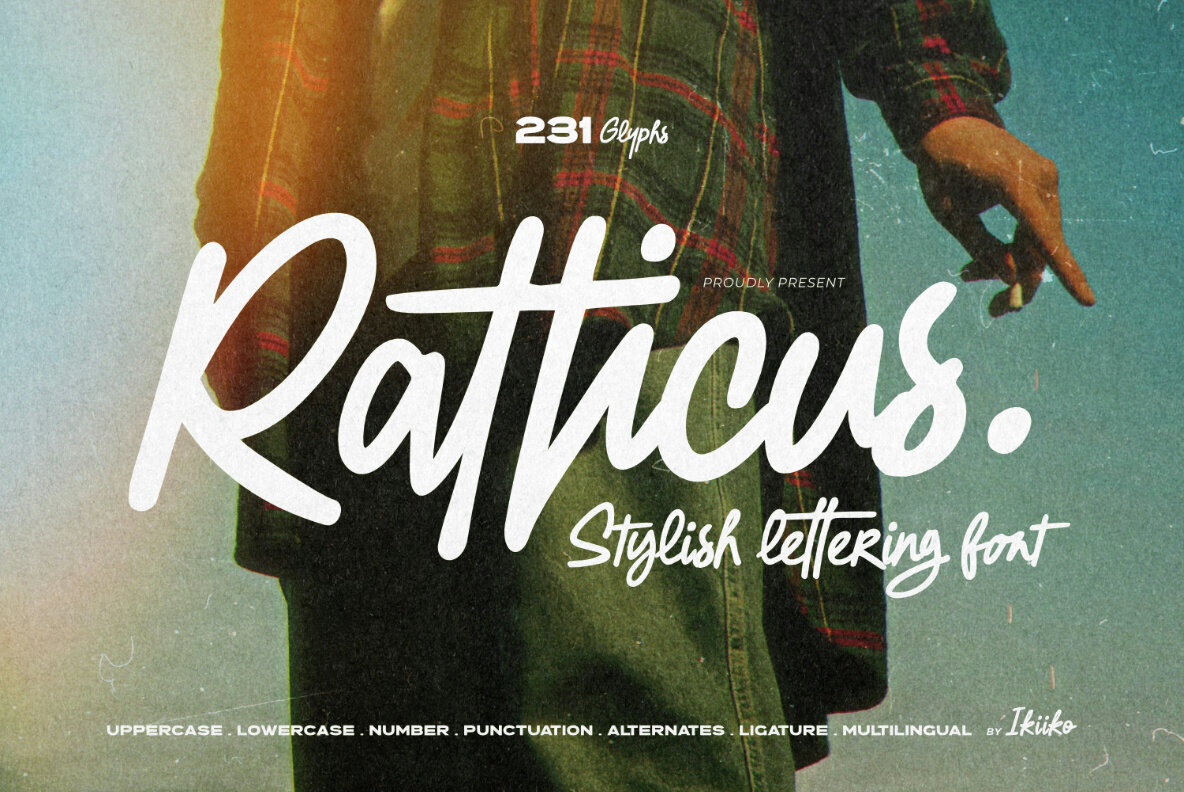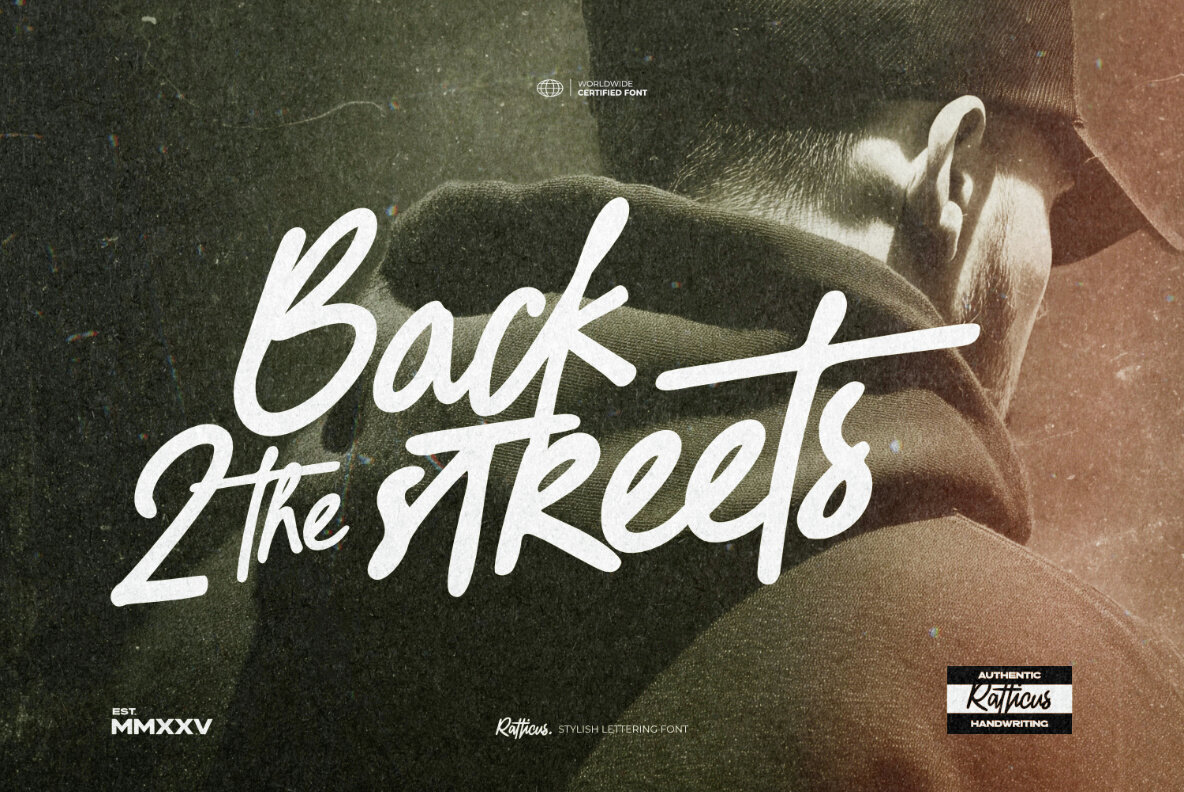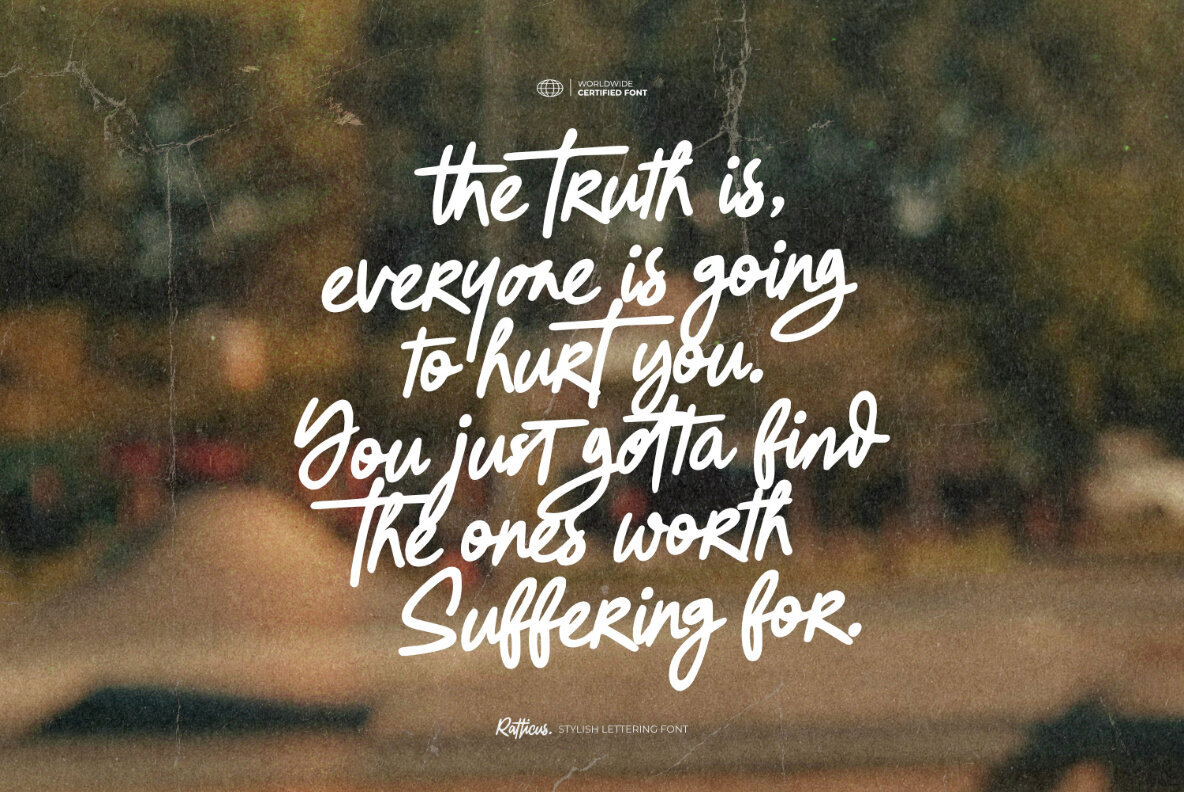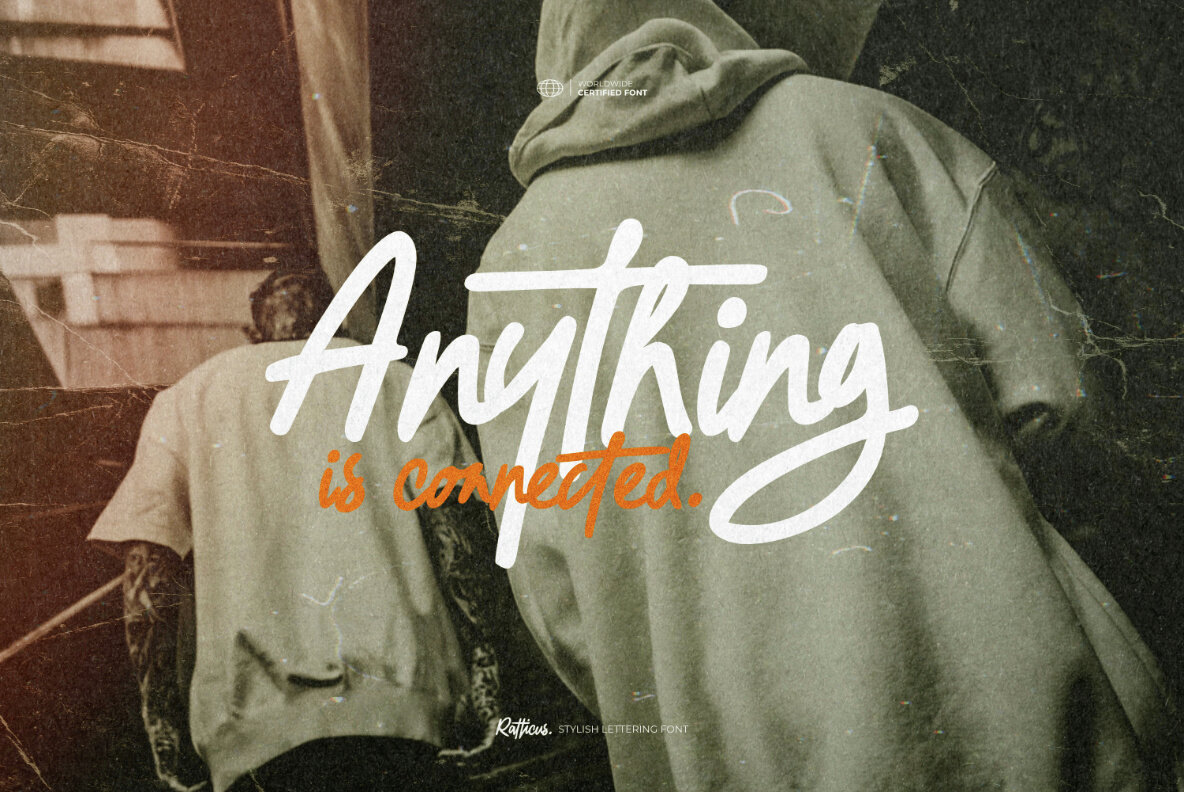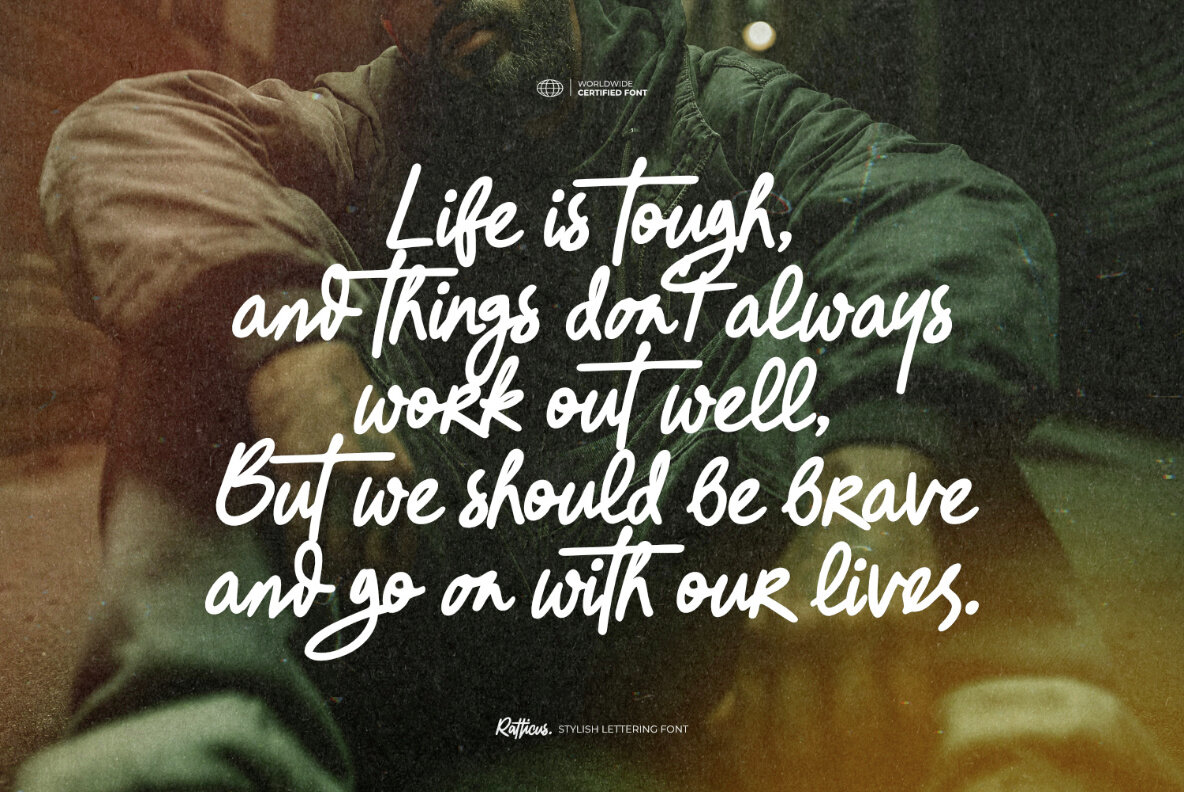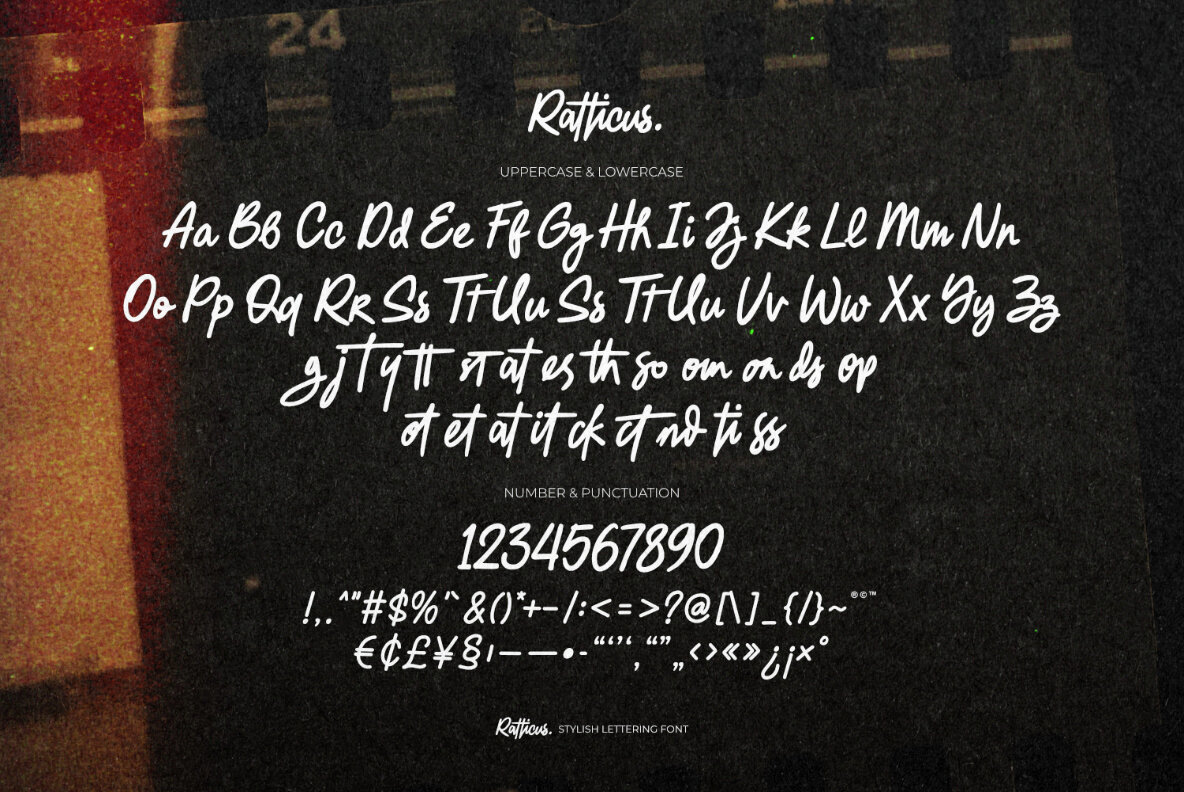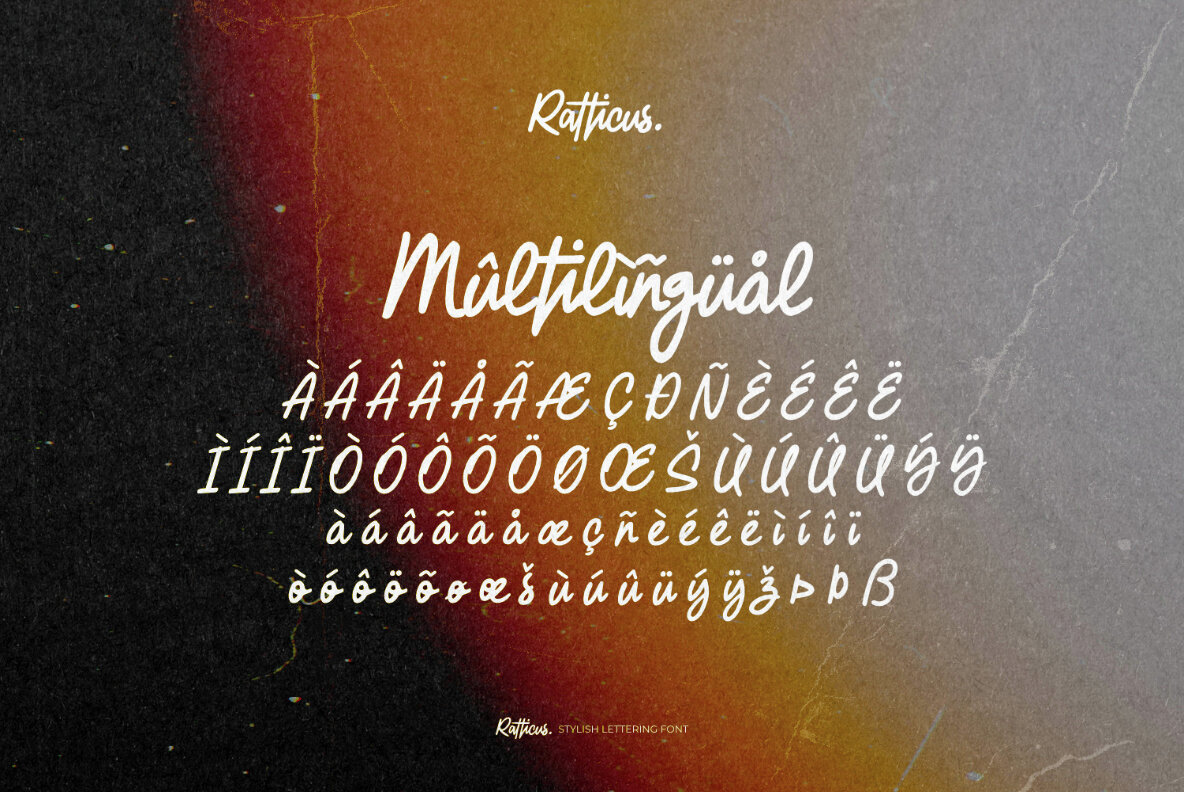
Ratticus Font
Ratticus
Inject an urban spirit into your design projects with Ratticus. This distinctive lettering font bears the mark of authentic handwriting inspired by rebellious street style, offering a raw, untamed aesthetic. Its expressive strokes are ideal for bold logos, striking posters, or apparel branding that commands attention. Ratticus stands out with its youthful energy and dynamic individuality, making it ideal for projects that embrace a graffiti-inspired look or urban-themed social media posts. Whether for posters, streetwear designs, logotypes, magazine layouts, or as a stylish overlay, Ratticus meets the creative demands of contemporary youth culture.Ratticus: Urban Flair in a Stylish Lettering Font